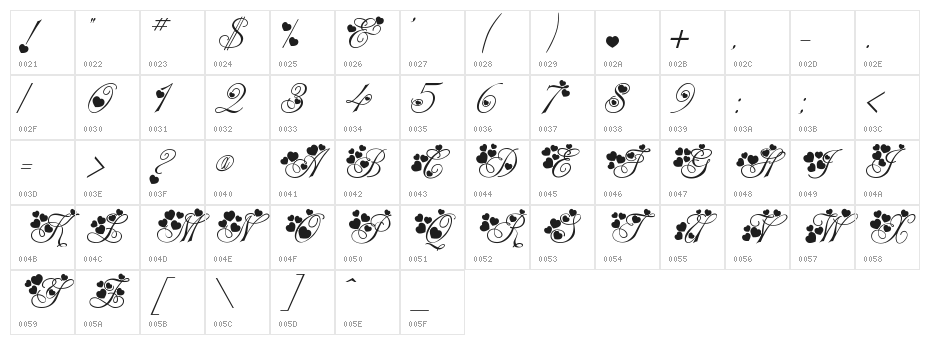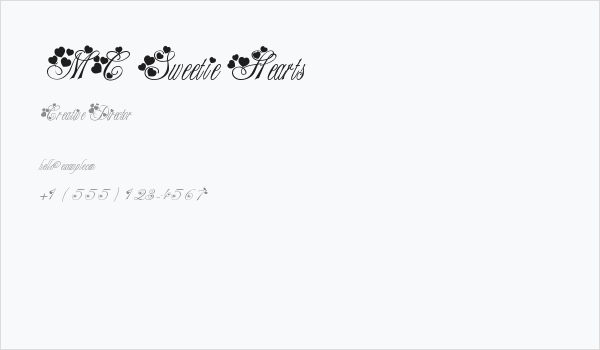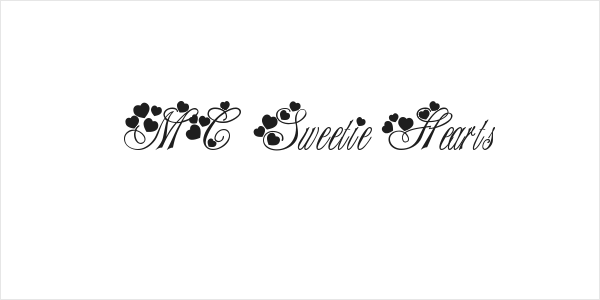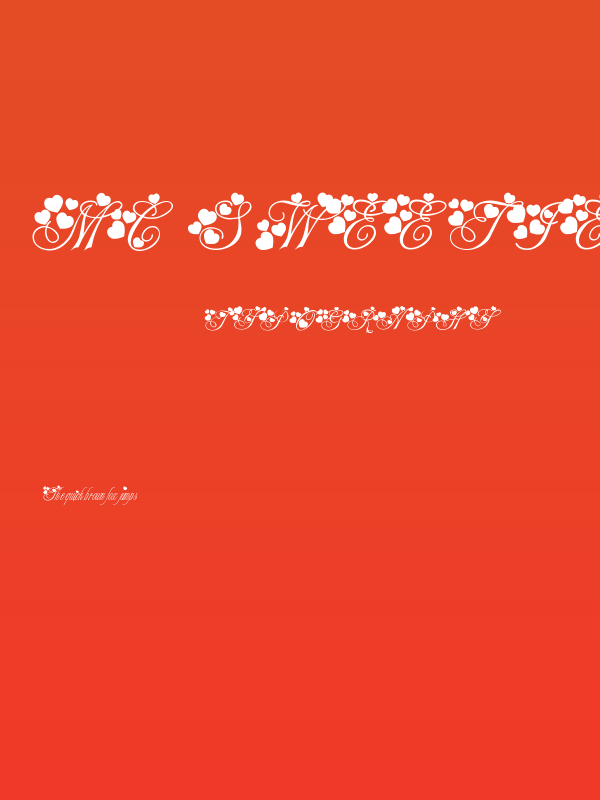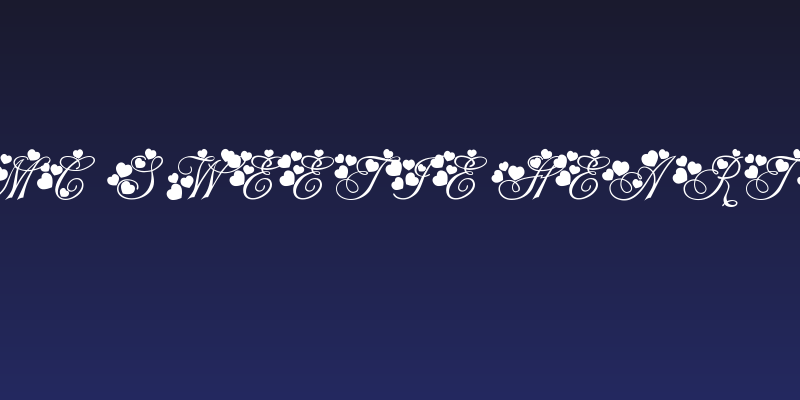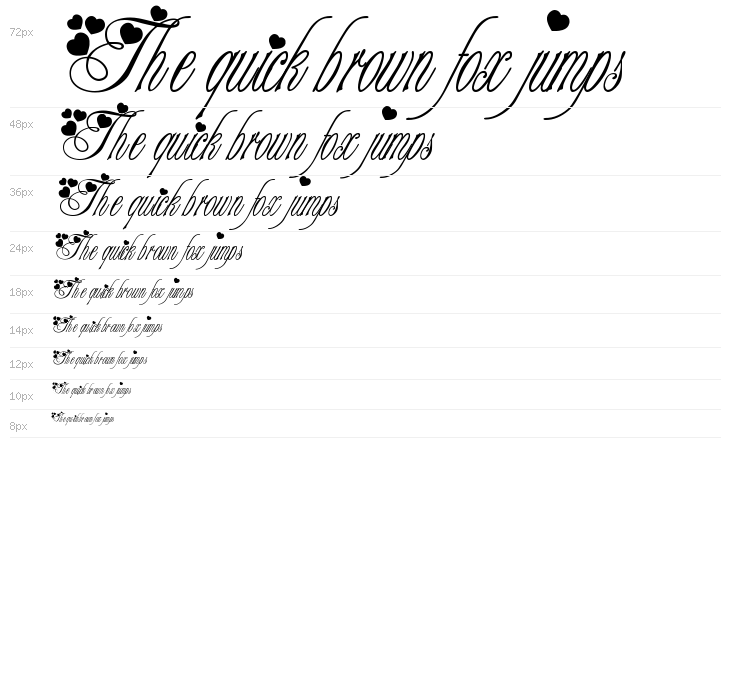
MC Sweetie Hearts Font
MC Sweetie Hearts Description
This font features an elegant and whimsical script style, characterized by its flowing, cursive letters adorned with heart motifs. The uppercase letters are highly decorative, with intricate loops and swirls that add a playful yet sophisticated touch. The lowercase letters maintain a more traditional cursive form, providing a nice contrast to the ornate capitals. Numbers and special characters also incorporate heart elements, enhancing the romantic and charming aesthetic. This font is perfect for projects that require a touch of elegance and romance, such as wedding invitations, greeting cards, or love-themed branding.
| Proposed Projects | Ideal for wedding invitations, romantic greeting cards, and love-themed branding. |